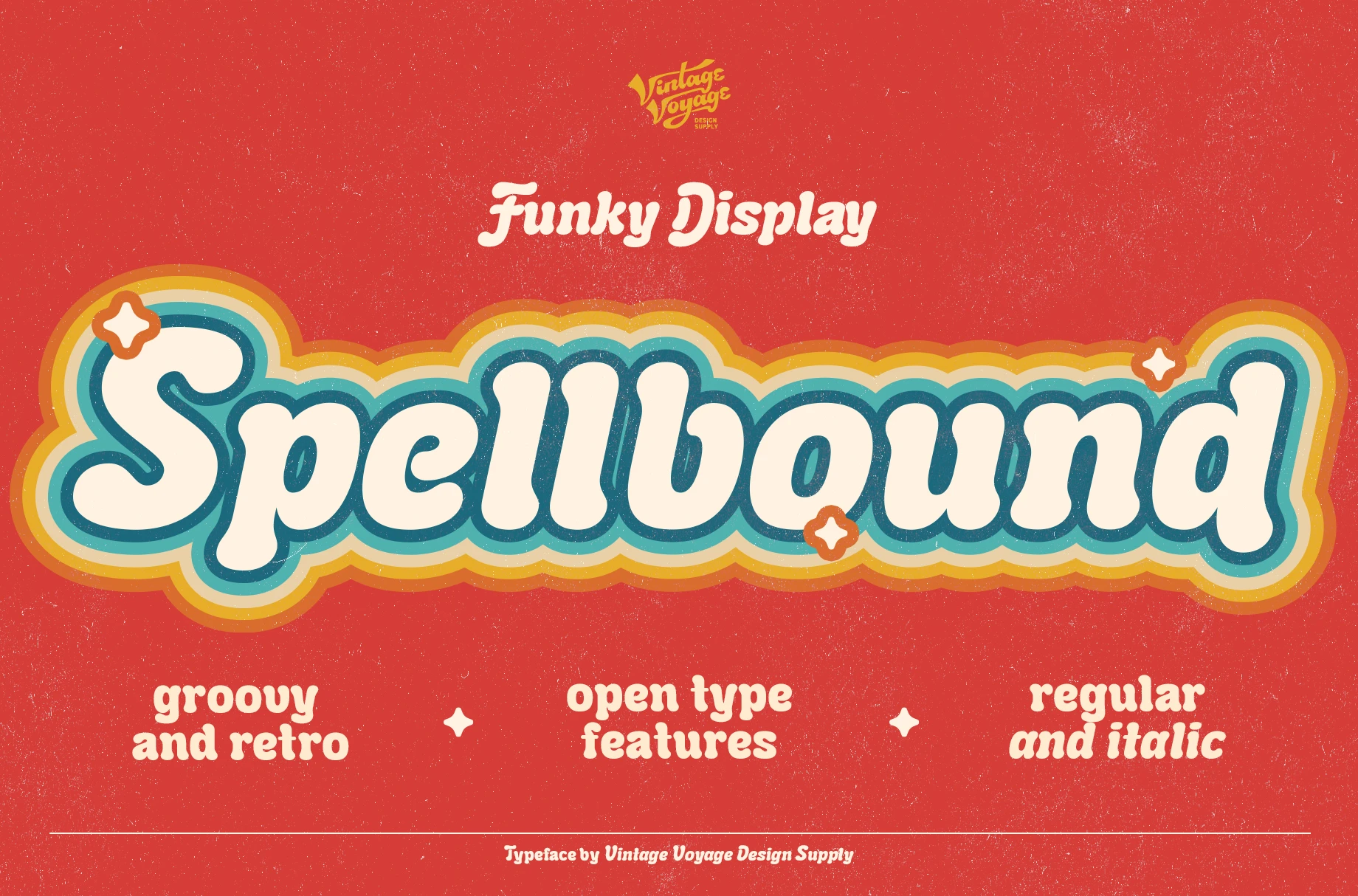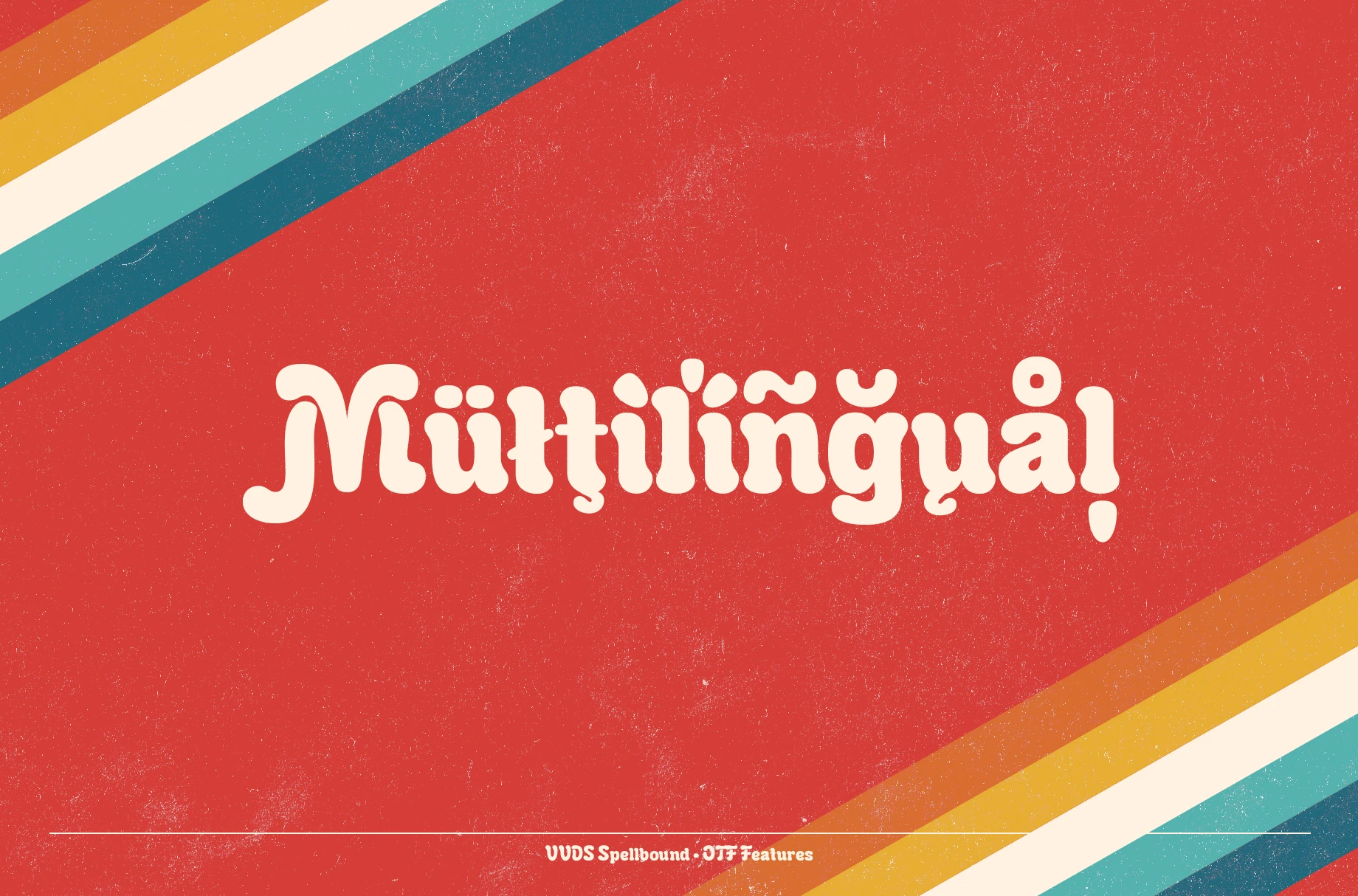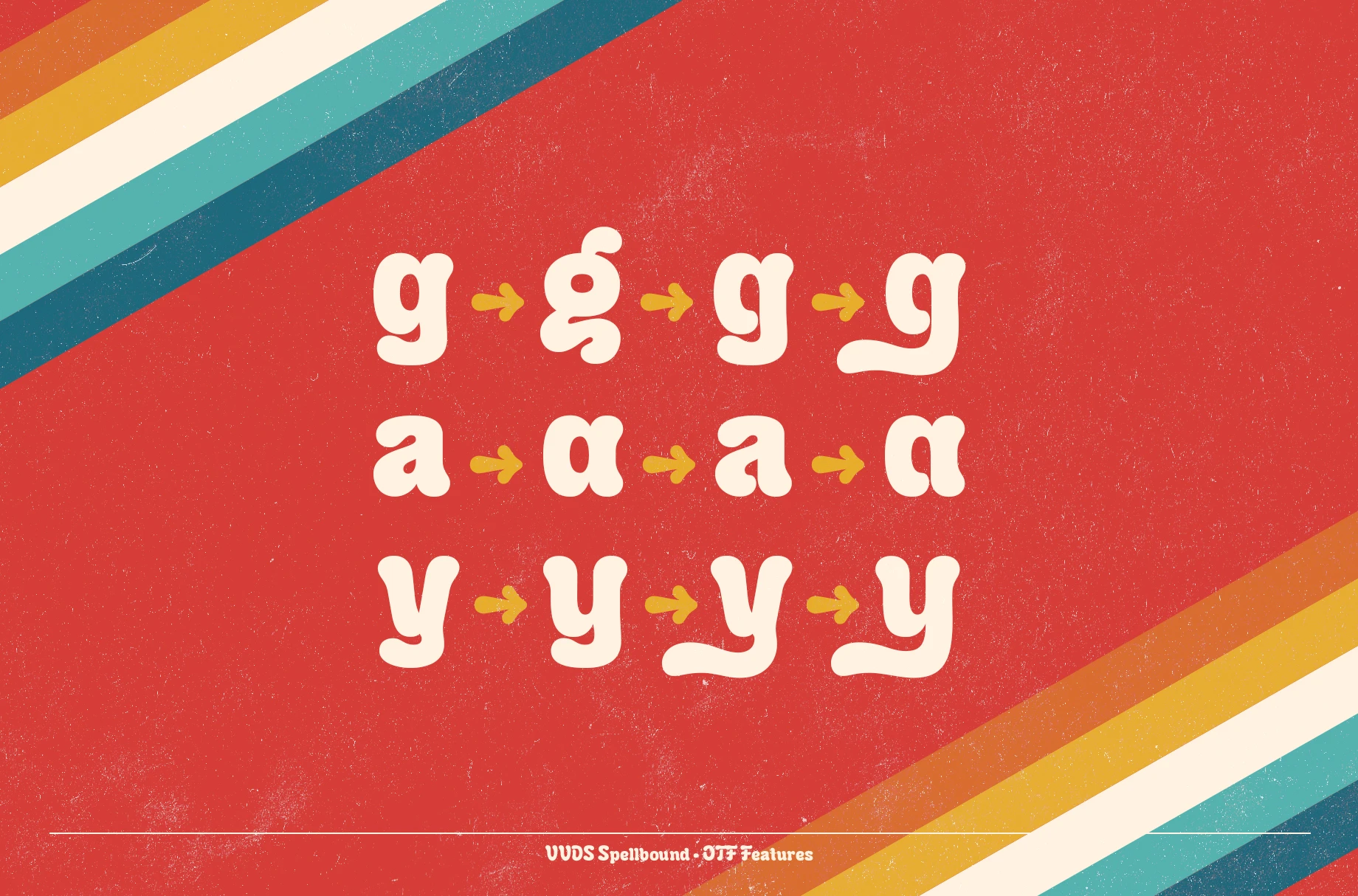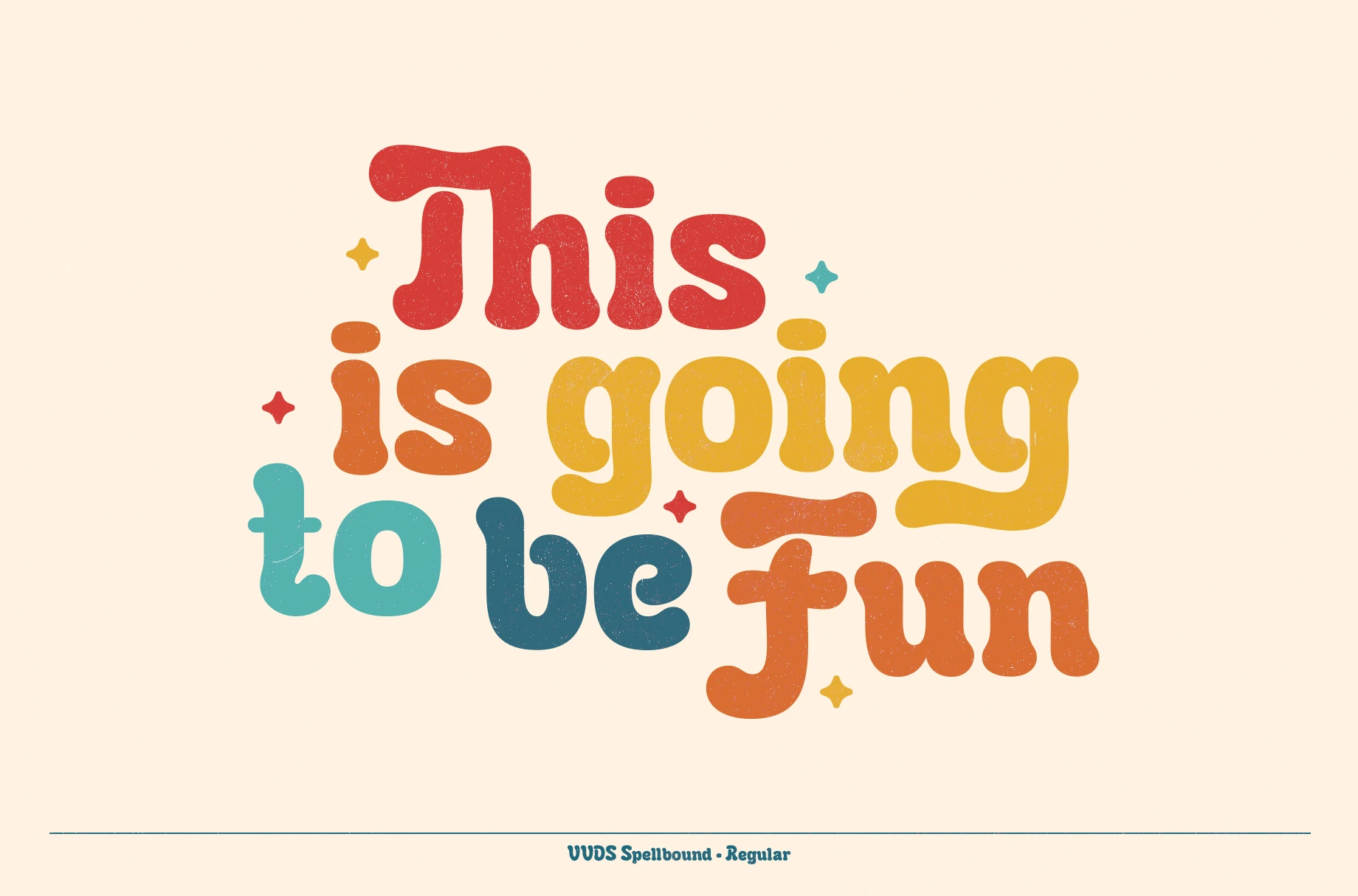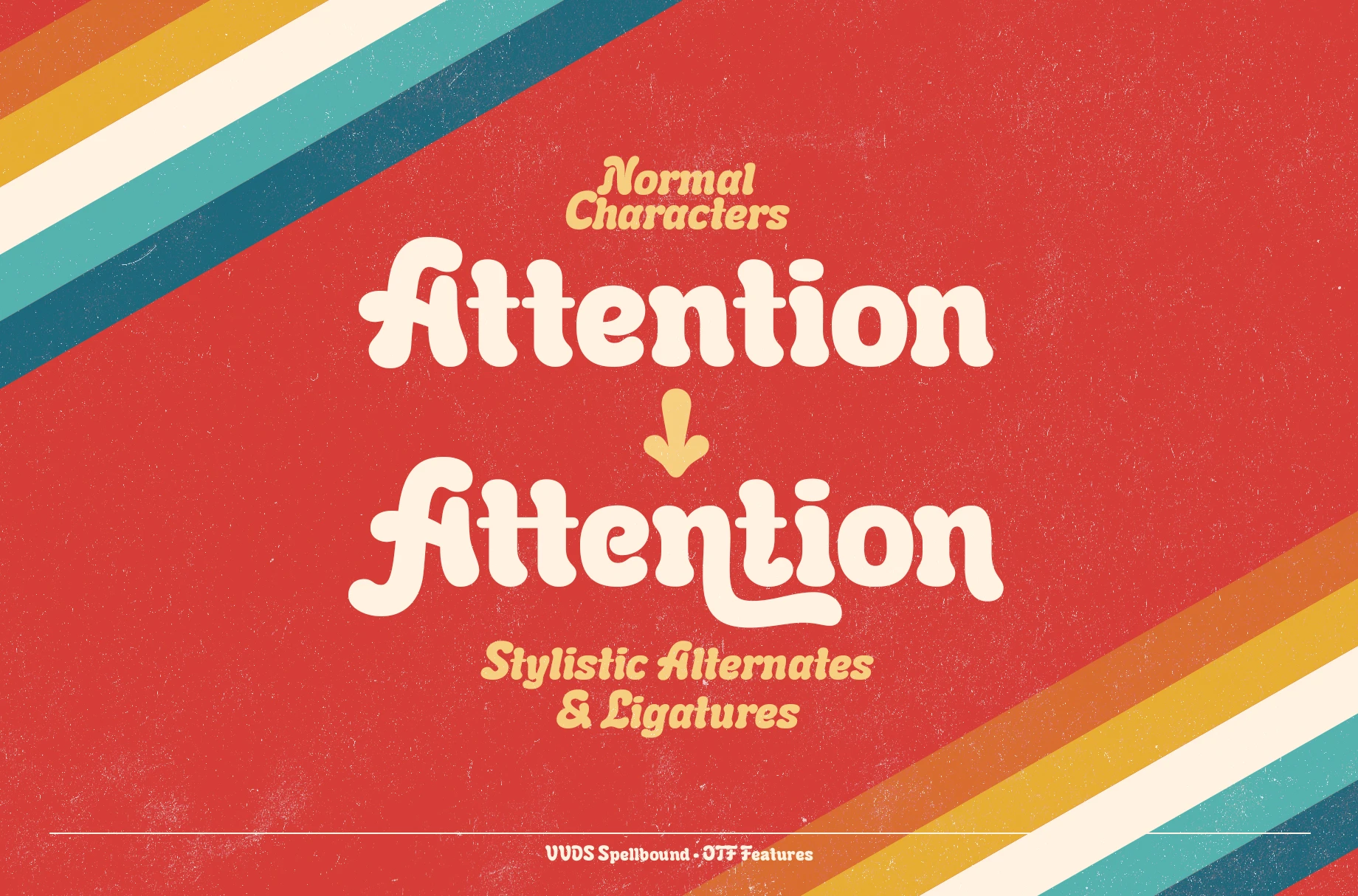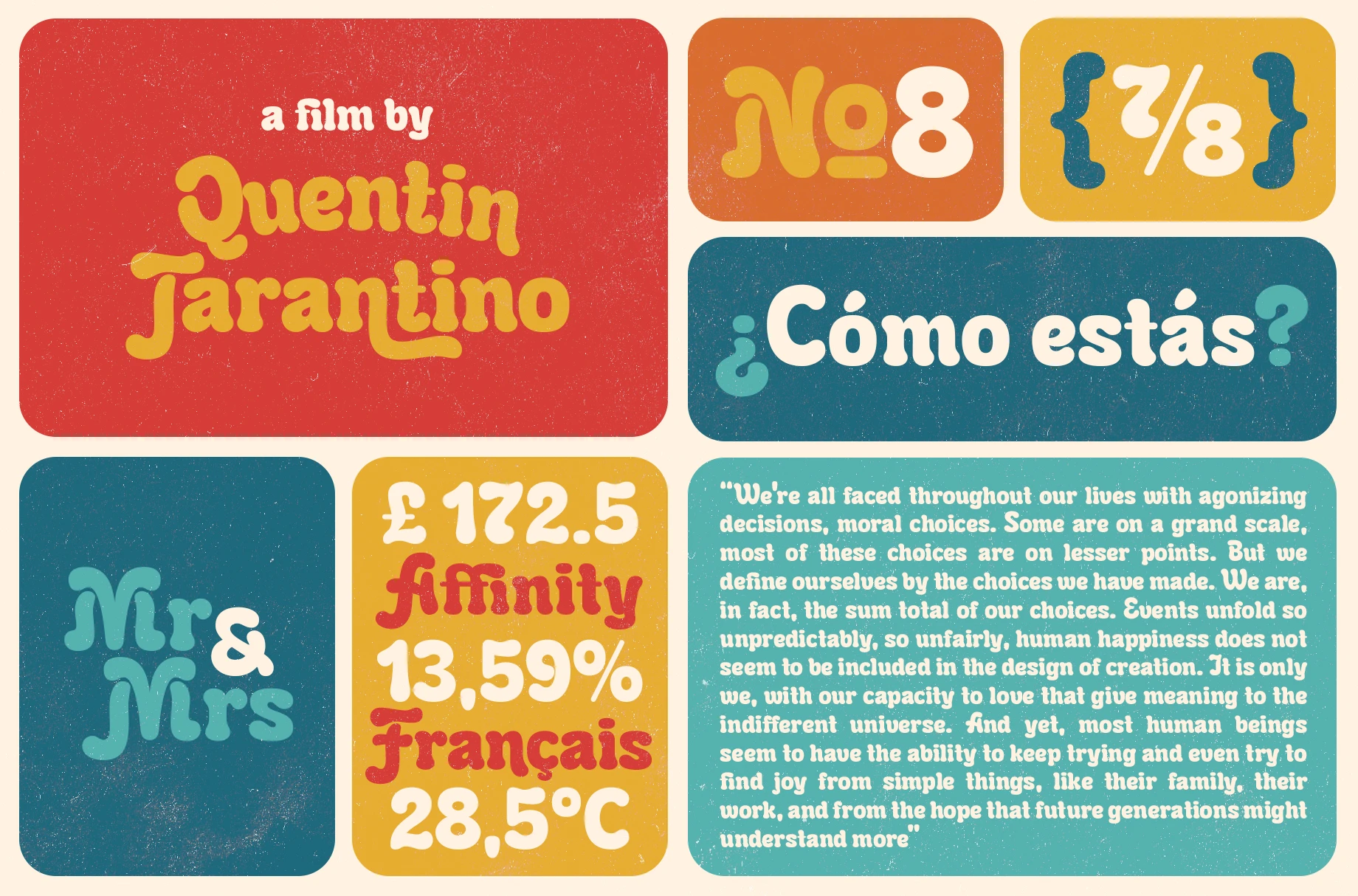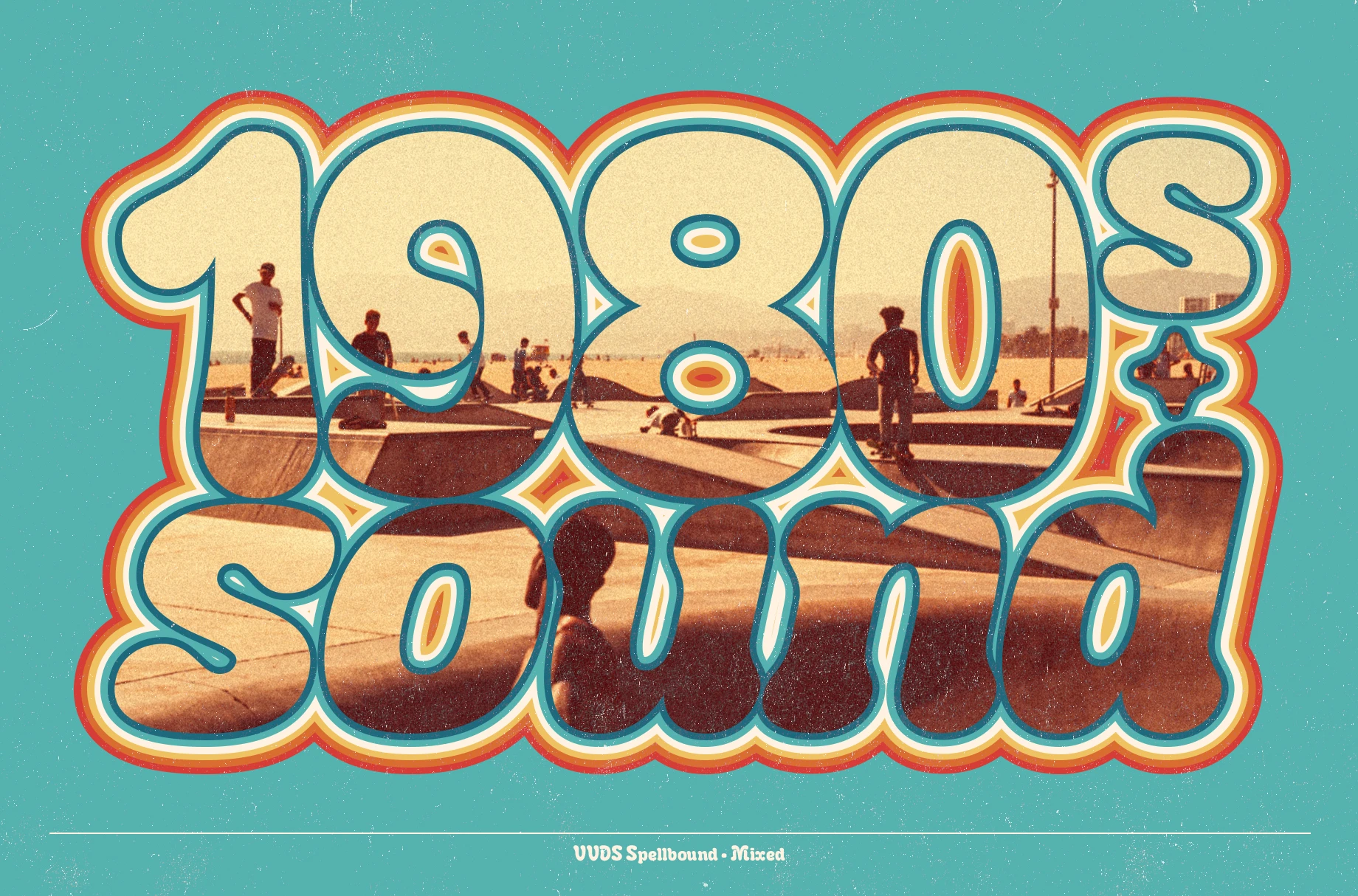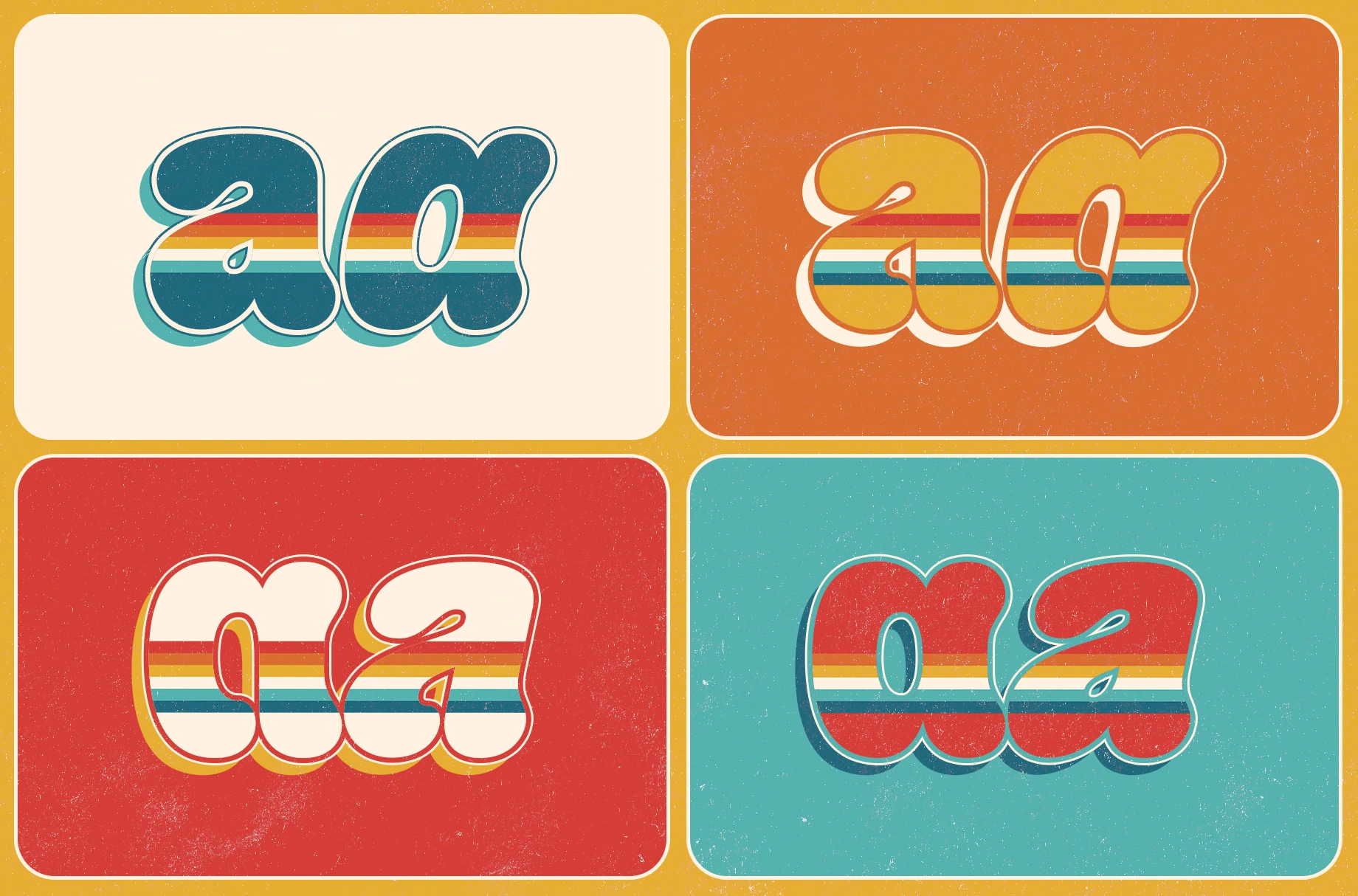
Spellbound Font Family
Spellbound is an authentic groovy typeface inspired by the late 70s and early 80s aesthetic. Smooth, playful, and full of retro character, it’s perfect for vintage-themed designs. Works especially well for display block texts like package labels, headers, t-shirt prints, and stickers. Offers a wide range of creative options with multiple alternates — two for each capital letter and up to six for lowercase. Includes both Regular and true Italic styles for dynamic pairings. Built with OpenType features for flexible, expressive typography.
• Common Ligatures
• Fractions
• Ordinal Numerals
• Stylistic Sets
Styles included • Regular • Regular Italic